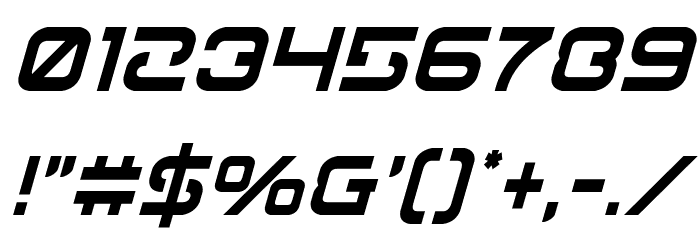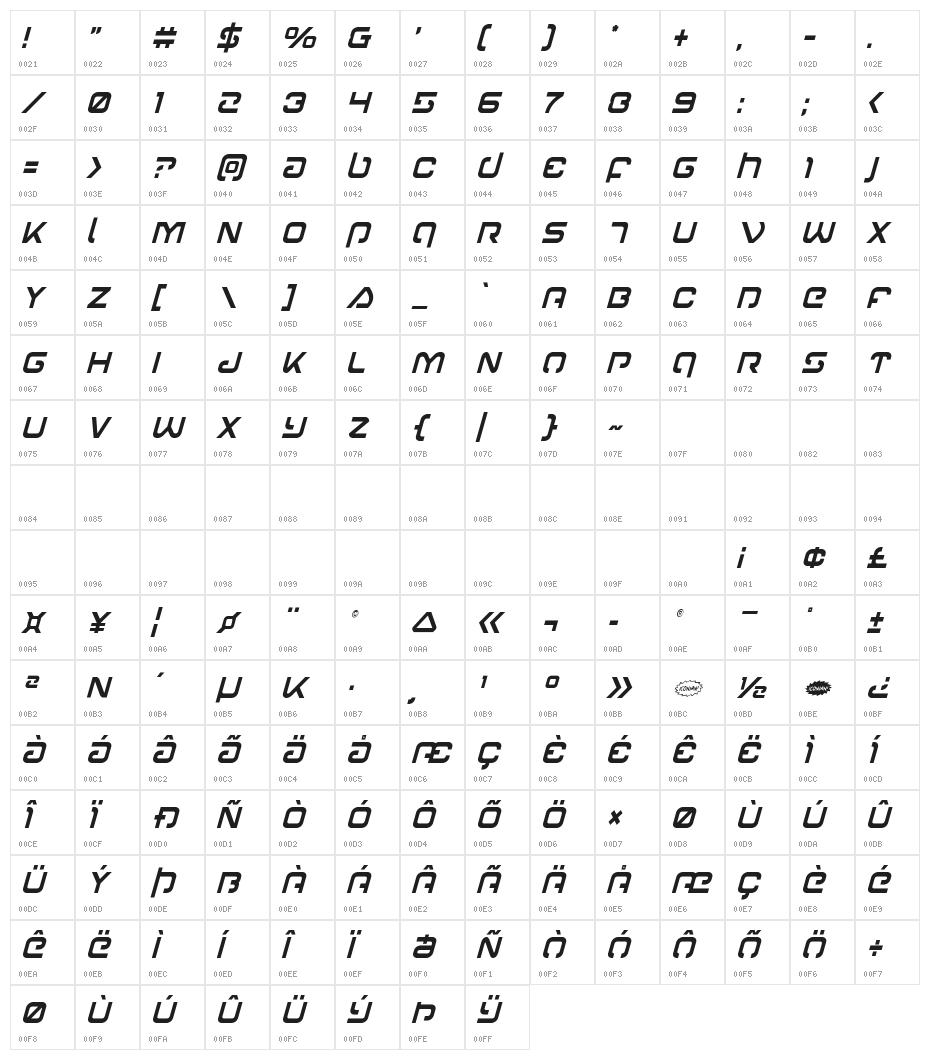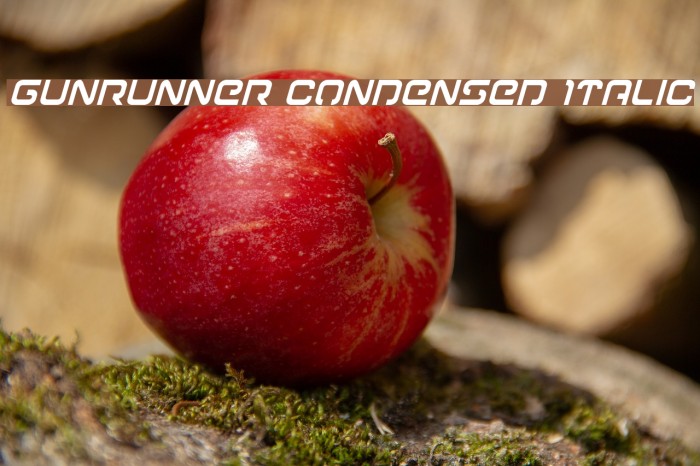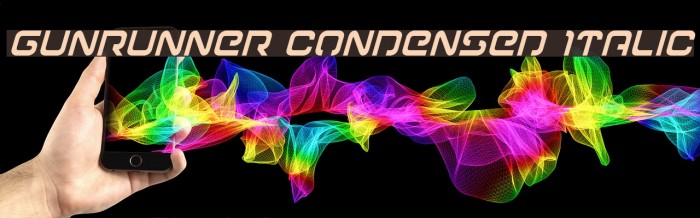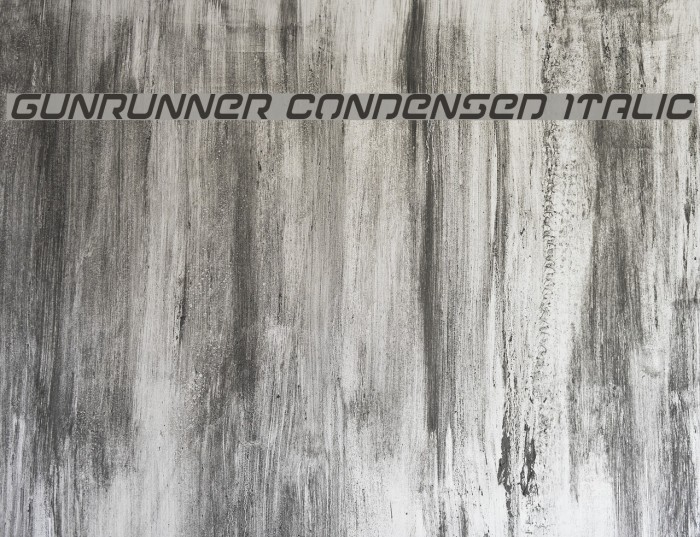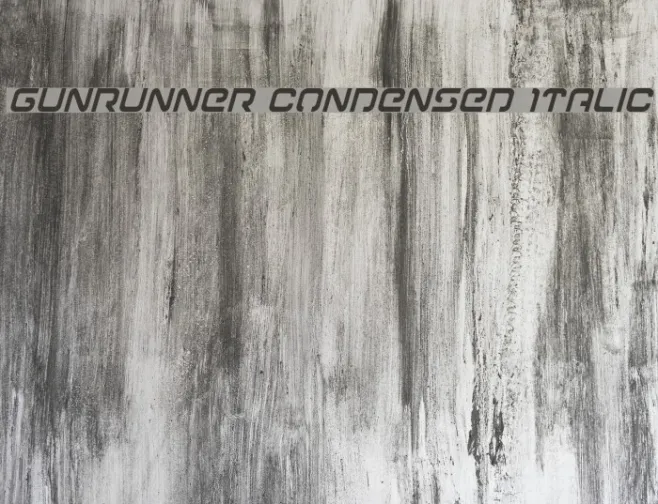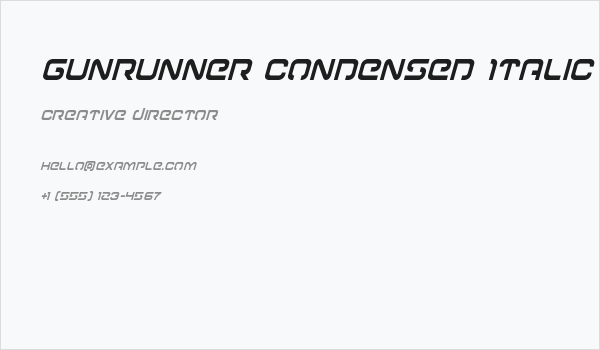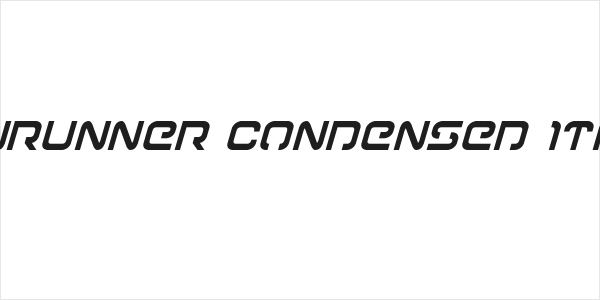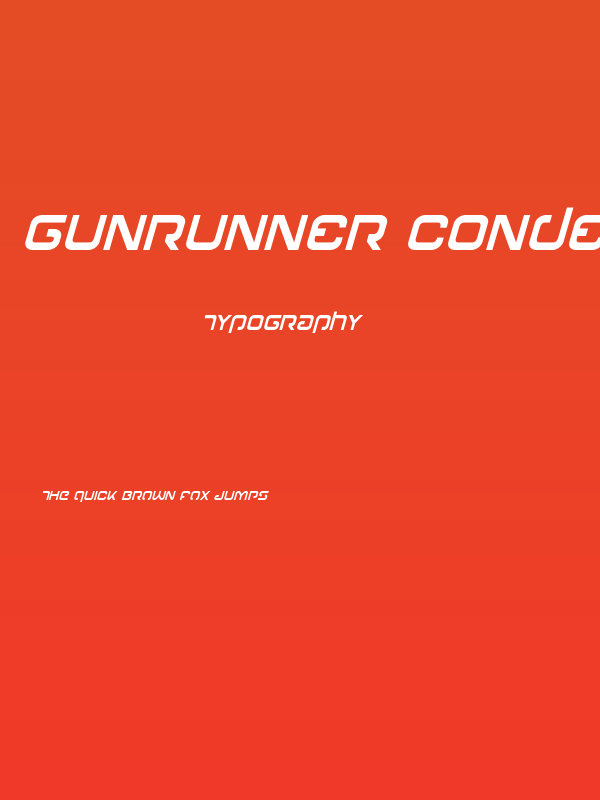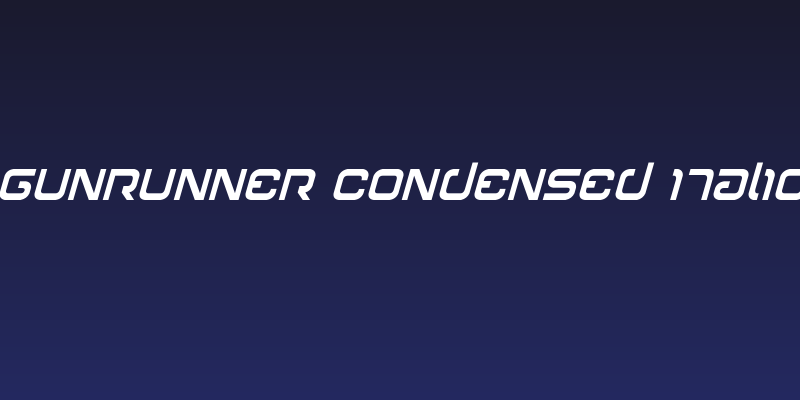
Gunrunner Condensed Italic Font
Gunrunner Condensed Italic Description
This font features a sleek, modern design with a condensed and italicized style. The characters are slightly slanted, giving a dynamic and forward-moving appearance. The strokes are consistent in thickness, providing a uniform look across all characters. The font maintains a geometric structure with rounded edges, adding a touch of softness to its otherwise sharp and angular form. The numerals and special characters align seamlessly with the alphabet, ensuring a cohesive visual experience. This font is ideal for projects that require a contemporary and energetic feel.